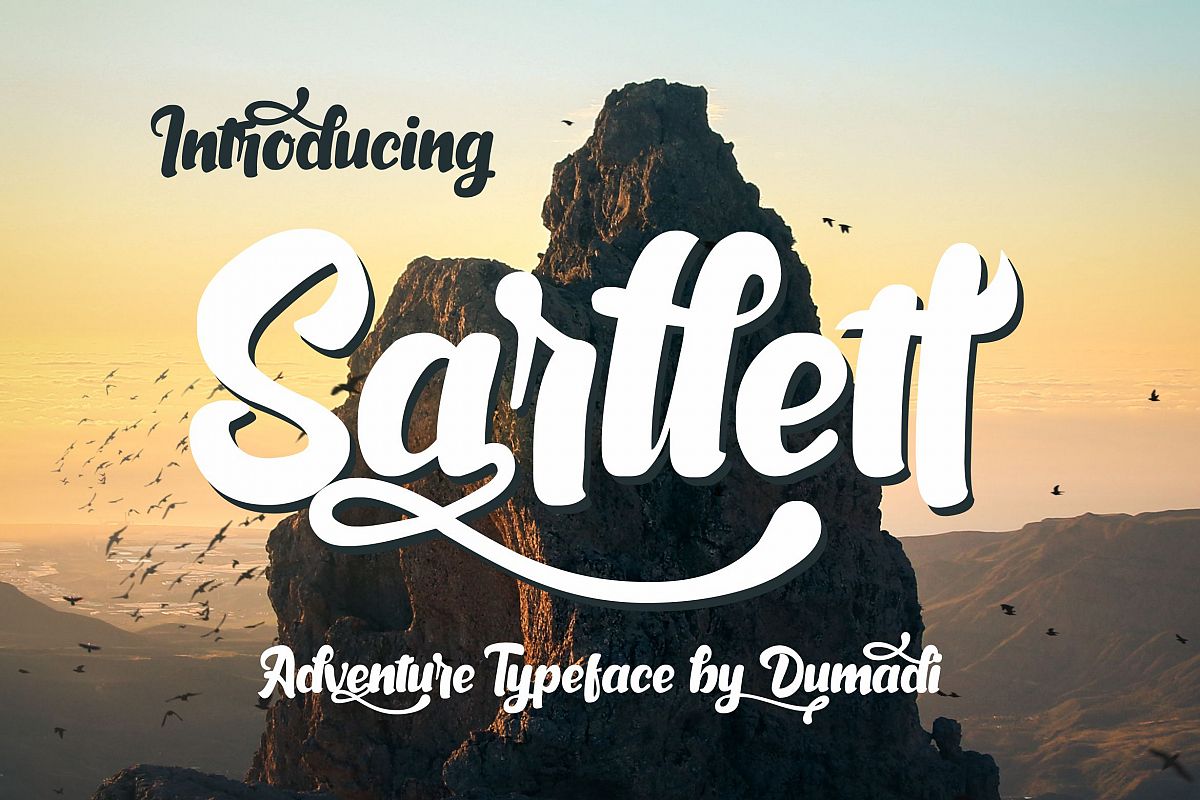
Sarllett
Sarllett Typeface by Dumadi is an amazing work of art.The typeface that is suitable for the touch of your design project.This font looks very beautiful if it is used for wall decoration, t-shirt designs, wedding invitation cards, you can use the rest for design needs that are suitable as needed.Get it Right, Hopefully Sarllett Font can be present in your work.